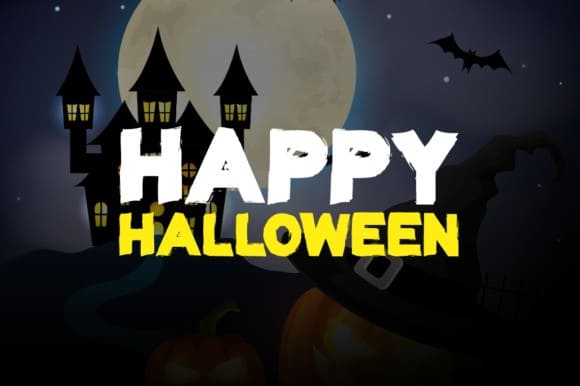
Spooky Regime Display Font
Spooky Regime Display Font is a paint roller inspired typeface. This font will give you roller and dry brush vibes. Suitable for any project. With unique characters make this font more special. Add this font to your creative ideas and notice how it will make them stand out! This is multi purpose font, very good for any advertisement and packaging, or apparel/fashion, and specially for any adventure design, sport design.